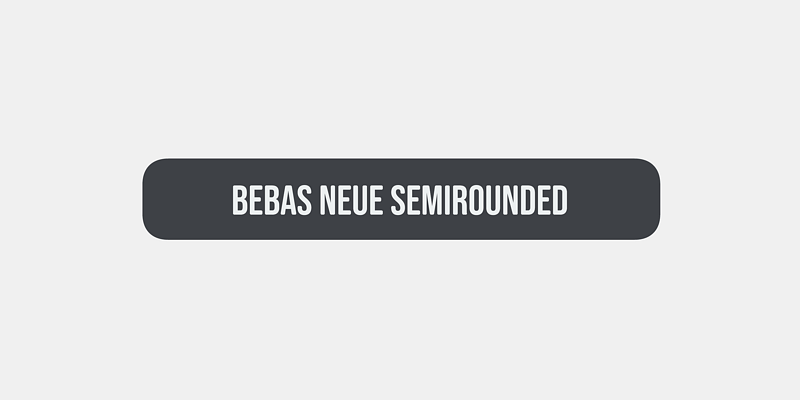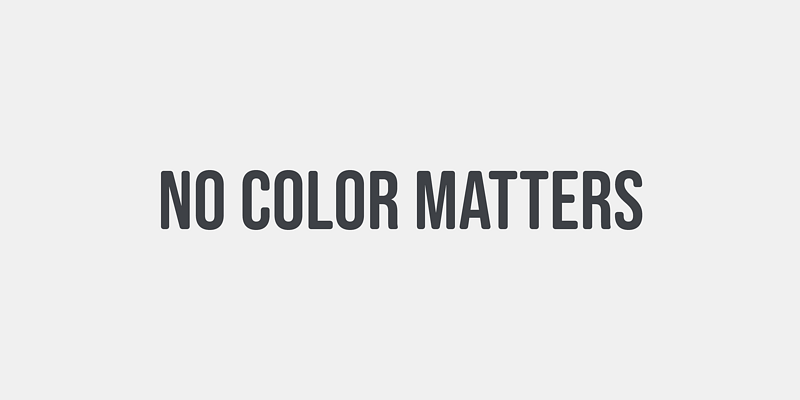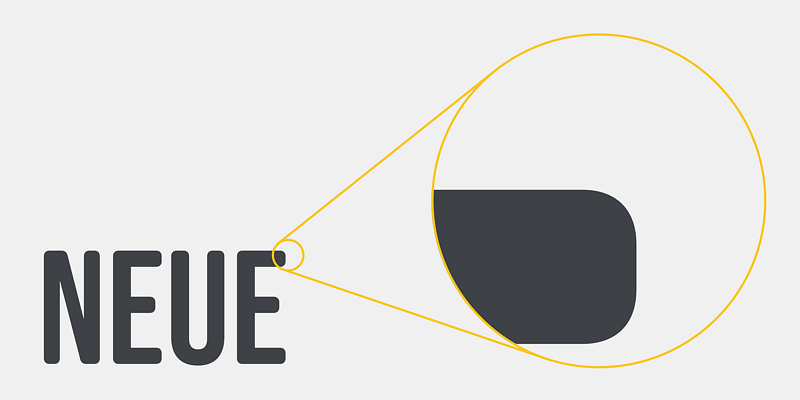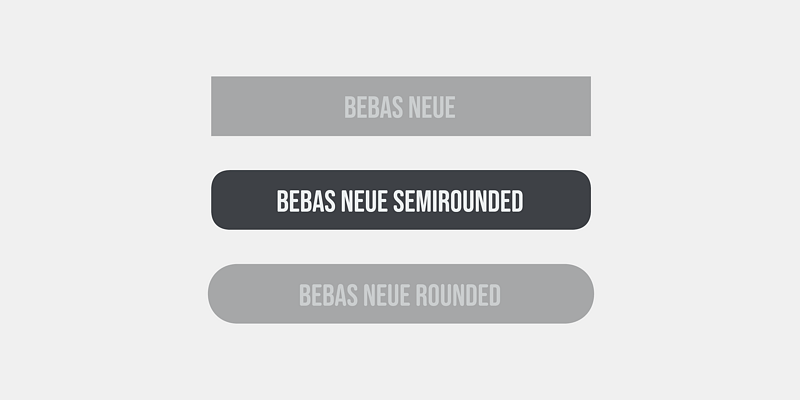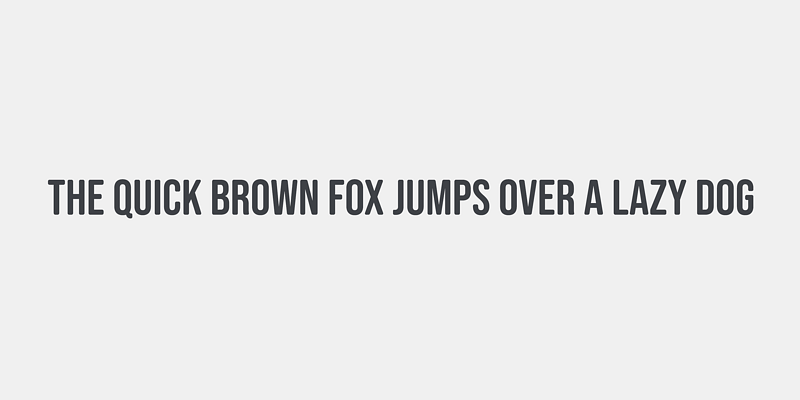
Bebas Neue SemiRounded is the Bebas Neue with rounded corners. The basic theory and proportion are same as Bebas Neue but rounded shape gives a warm, soft and natural impression.